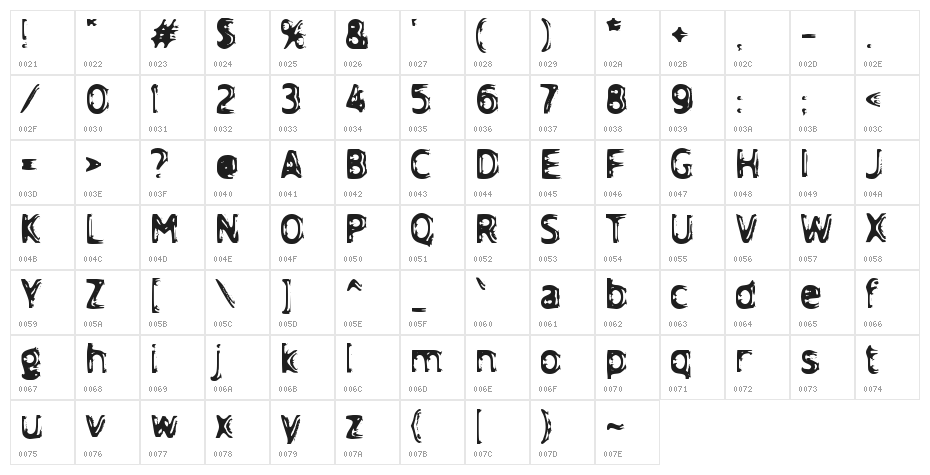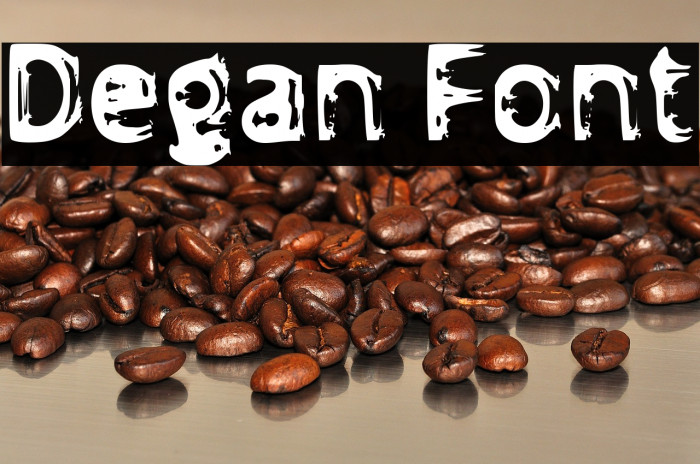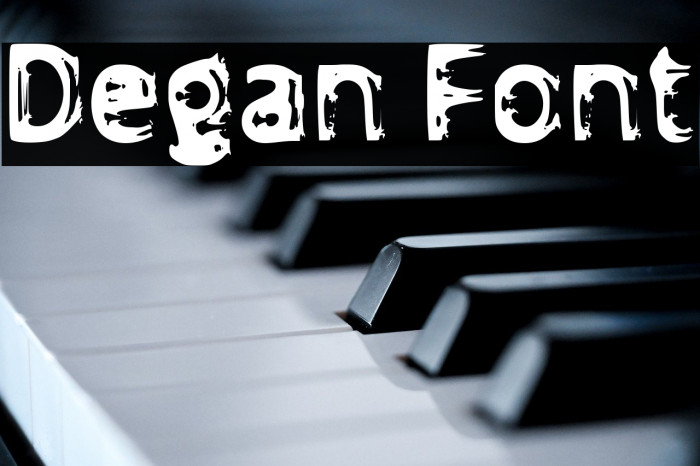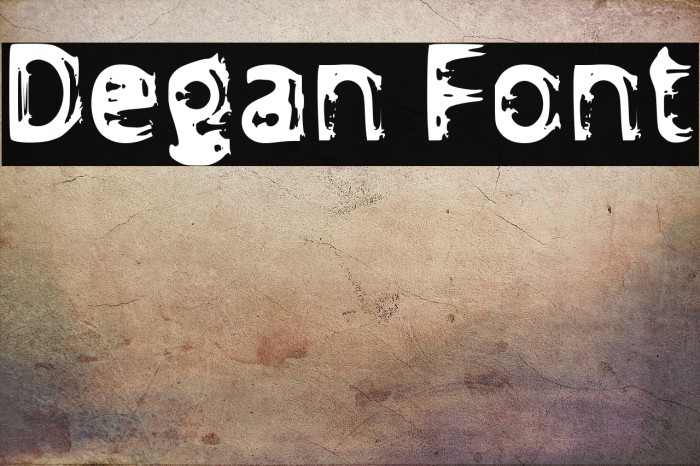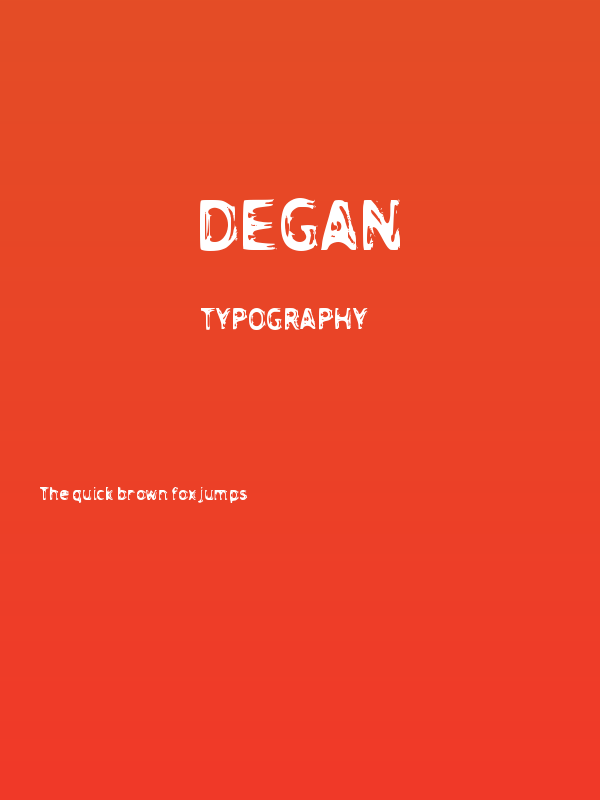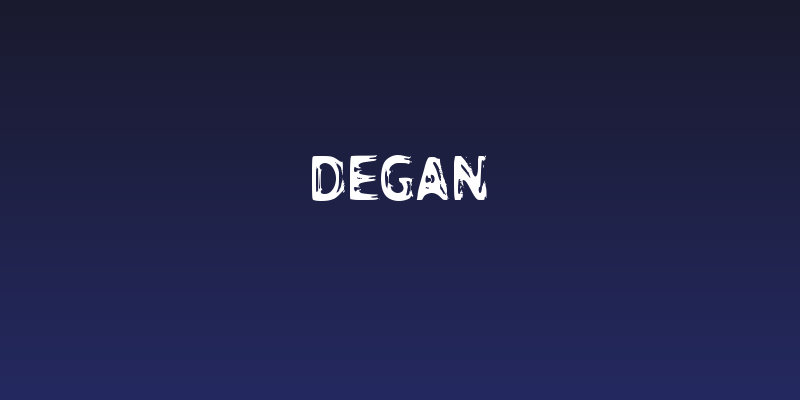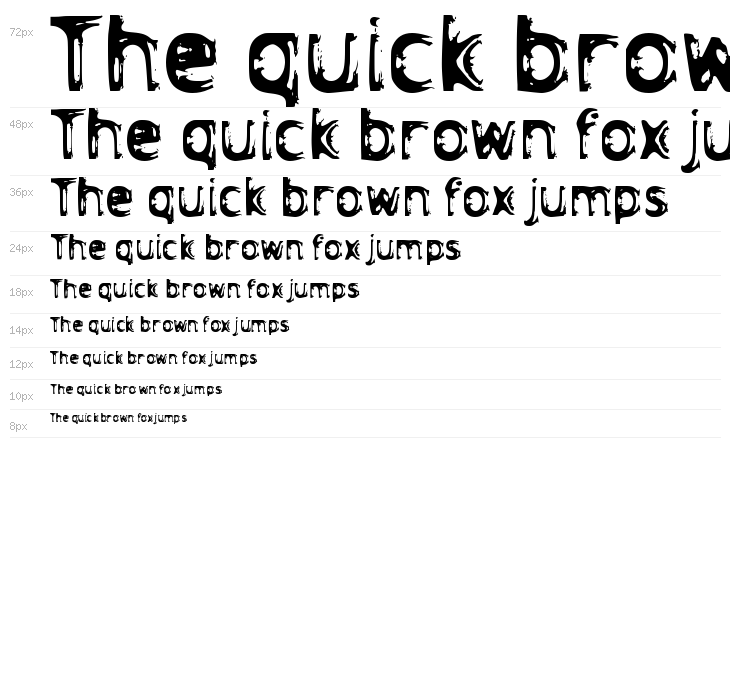
Degan Font
Degan Description
This font features a bold and distressed style, characterized by rough, uneven edges and a textured appearance that mimics a worn or weathered look. The letters are bold and substantial, with a high contrast between thick and thin strokes, giving it a dramatic and eye-catching presence. The irregularities in the design add a sense of movement and energy, making it ideal for projects that require a bold statement. The font maintains a consistent width across characters, ensuring readability despite its decorative nature. It is particularly suited for creative and artistic projects where a rugged, vintage aesthetic is desired.
| Overall Style | Vintage, Decorative |
| Proposed Projects | Ideal for posters, album covers, branding for edgy or vintage-themed products, and artistic projects requiring a bold statement. |